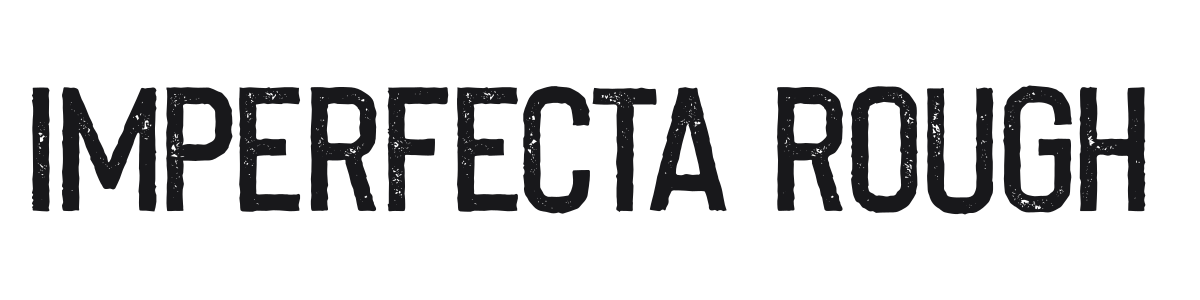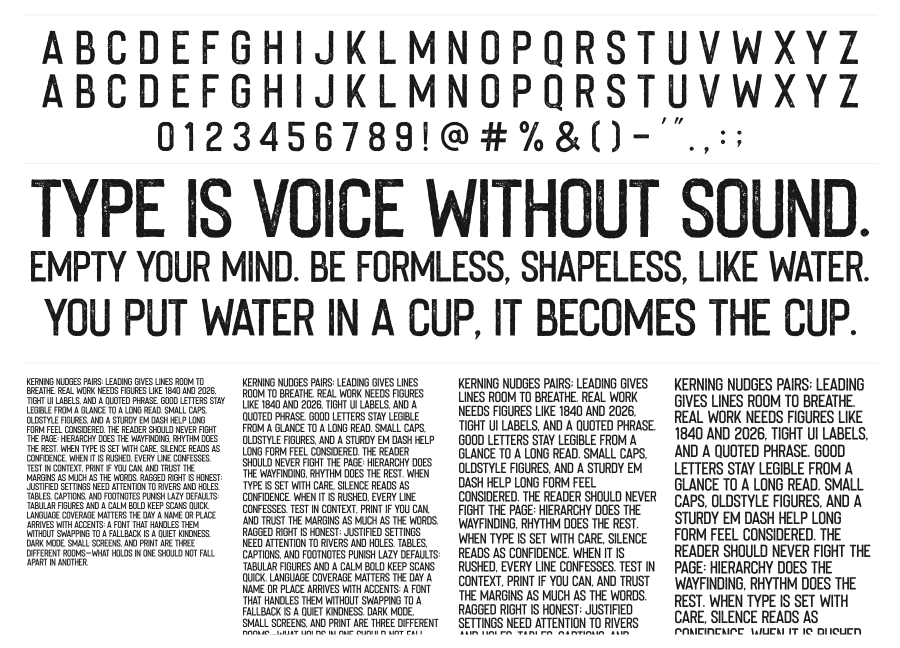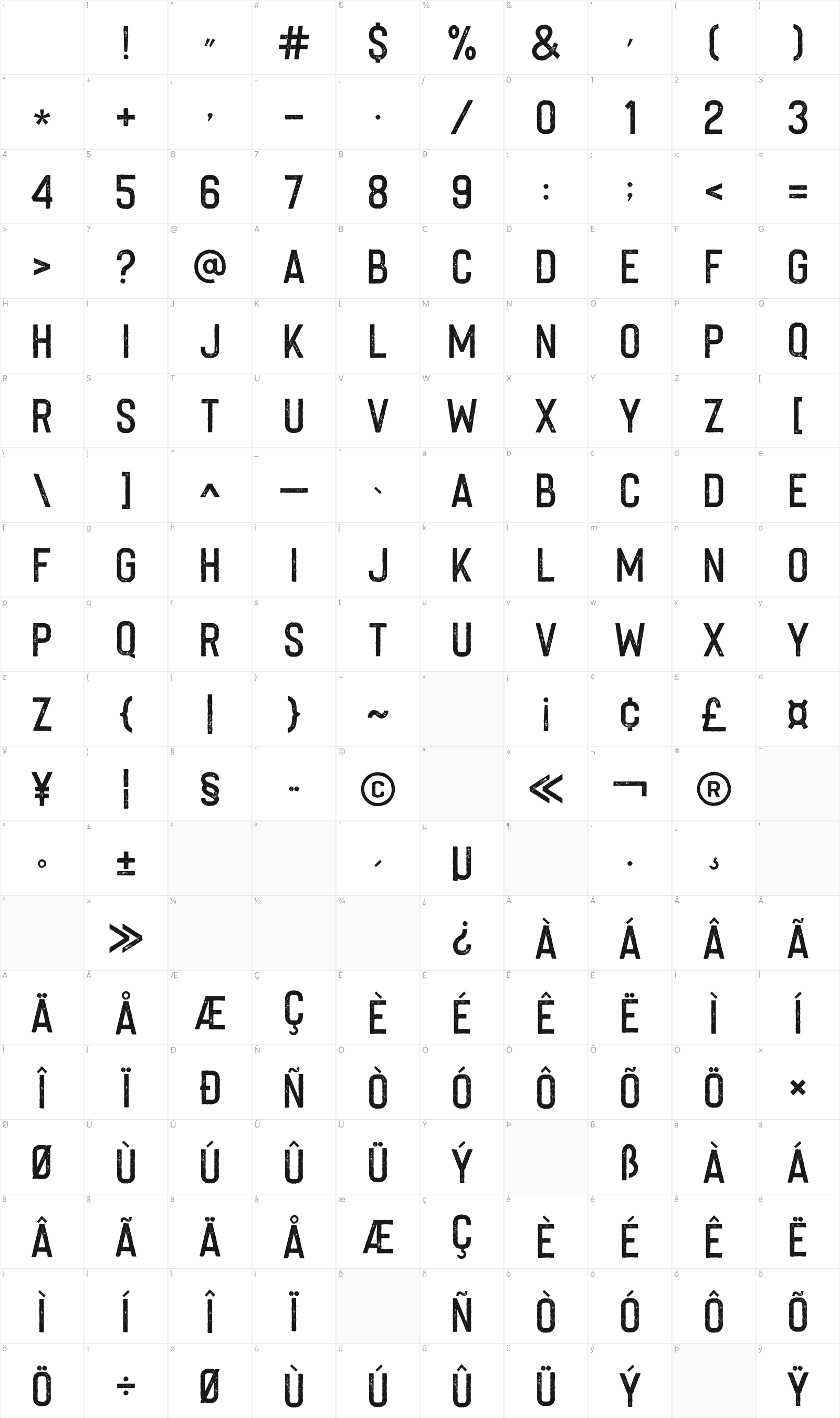
Imperfecta Rough
Imperfecta Rough is a bold condensed sans with a heavily worn texture that calls to mind old letterpress printing and stamped signage. The distressing is thorough and consistent, giving it a genuinely aged feel rather than a superficial effect. Strong at large sizes for posters, packaging, and any design that needs a rough, hand-printed edge.